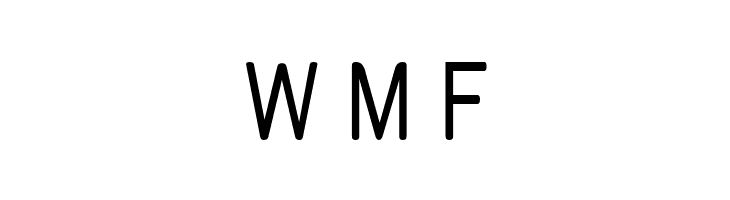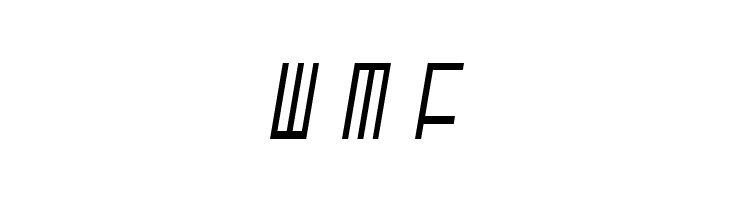
A clean, modern sans-serif font with balanced proportions and excellent readability.
A diverse set of decorative and functional arrow symbols with unique styles.
A bold collection of dinosaur silhouettes, perfect for impactful designs.
A decorative, geometric font inspired by the De Stijl art movement.
A bold, condensed font with strong, uniform strokes ideal for impactful headlines.
A bold, condensed font with geometric lines and uniform stroke width.
A tactile writing system using raised dots for visually impaired readers.
A bold, condensed blackletter font with intricate details and a historic flair.
A tall, narrow, and angular font with a modern artistic flair.
A narrow, modern sans-serif font with clean lines and uniform weight.
A whimsical and artistic collection of decorative symbols with diverse motifs.
A modern, thin, and condensed font with a minimalist design.
A classic, condensed serif font with elegant, elongated characters.
A playful, hand-drawn dingbat set featuring childlike sketches of faces, animals, and objects.
A bold, geometric outline font with a futuristic and edgy style.
A narrow, legible sans-serif font ideal for signage and wayfinding.
A geometric, condensed, and italicized font with a modern, technical style.
A bold, jagged, and dynamic font with a brush-like, slanted style.
A playful set of hand-drawn smiley faces with various expressive emotions.